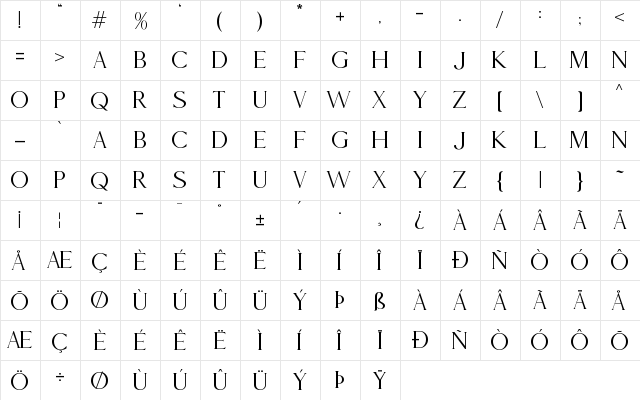
Mories Regular
| Designer | Malik Wisnu - MLKWSN 2019 |
Design Context for Mories Typeface
Mories is a composed and adaptable typeface that performs quietly and consistently across a wide range of design contexts.